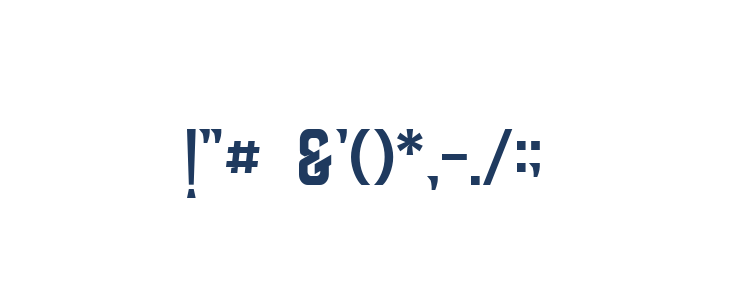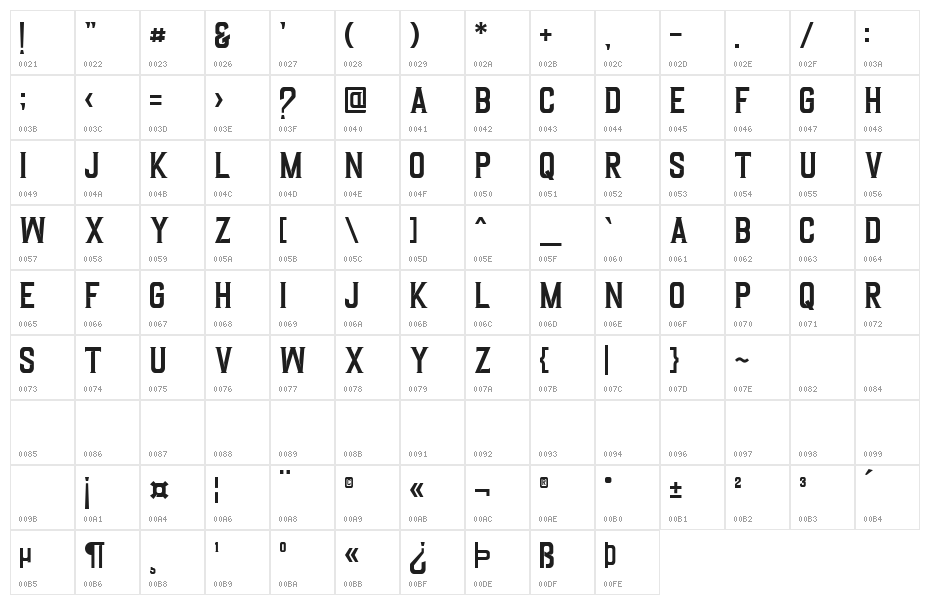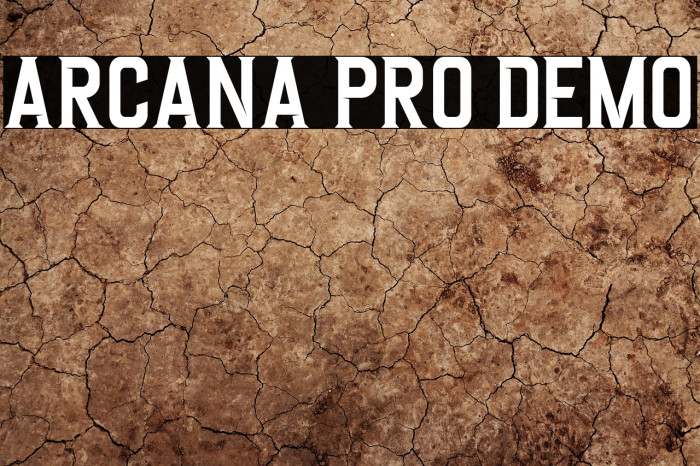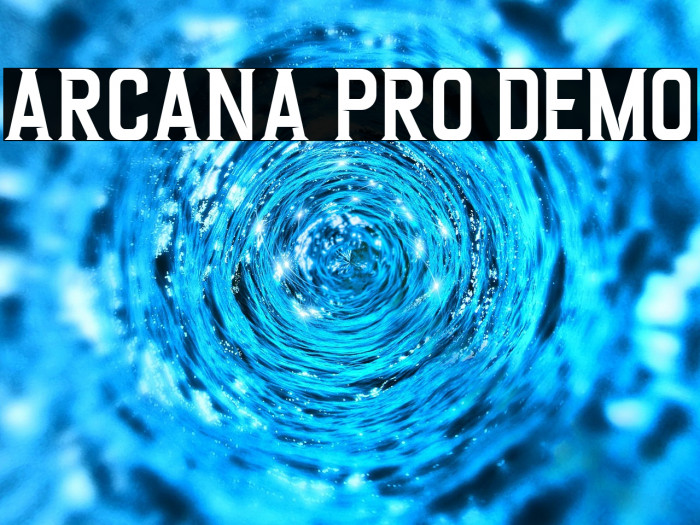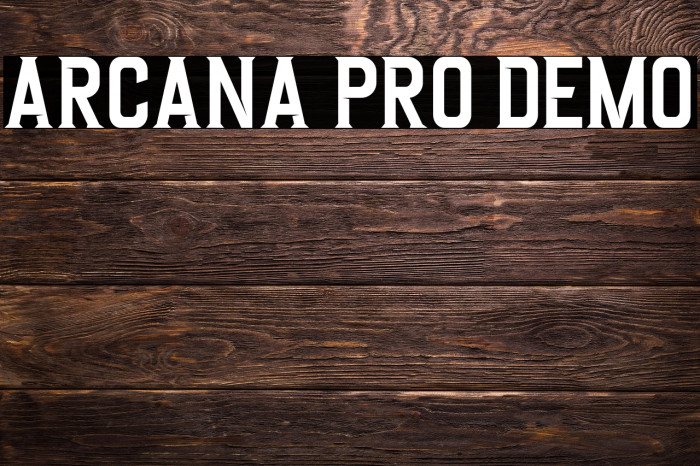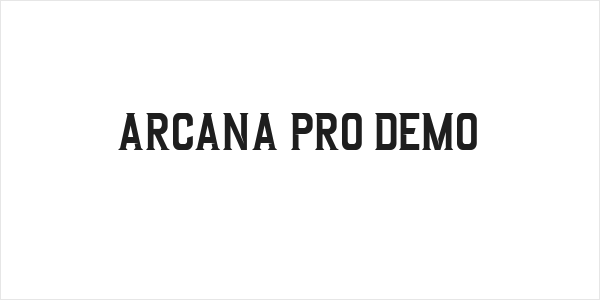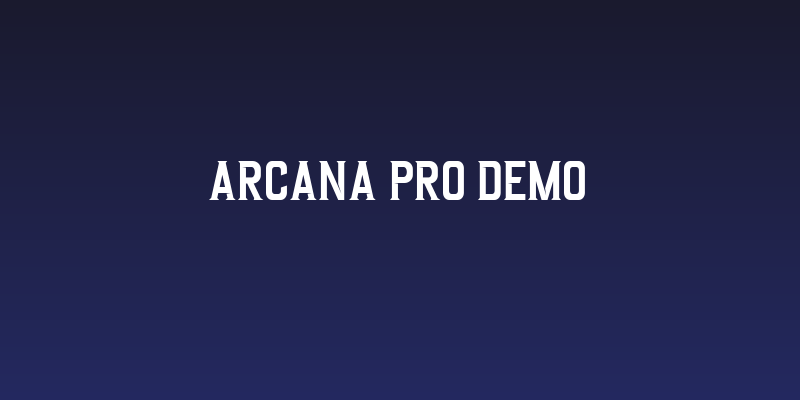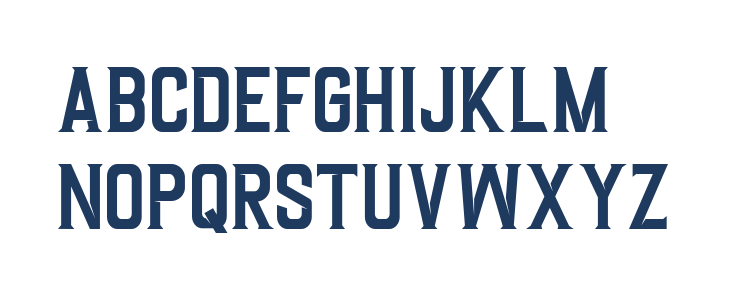
Arcana Pro DEMO Font
Arcana Pro DEMO Description
This font features a bold and striking design with a modern twist. The characters are sharply defined with a strong presence, making them ideal for attention-grabbing headlines. The uppercase letters exhibit a geometric style with angular cuts and a slightly condensed form, giving them a unique and contemporary look. The font maintains a consistent weight throughout, providing a uniform appearance that enhances readability. The special characters are designed to complement the overall aesthetic, ensuring versatility in various design contexts. Its boldness and clarity make it suitable for impactful visual communication.